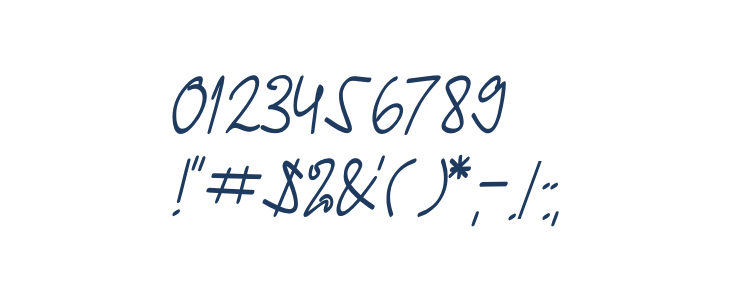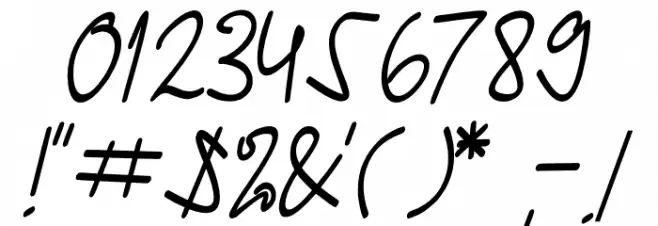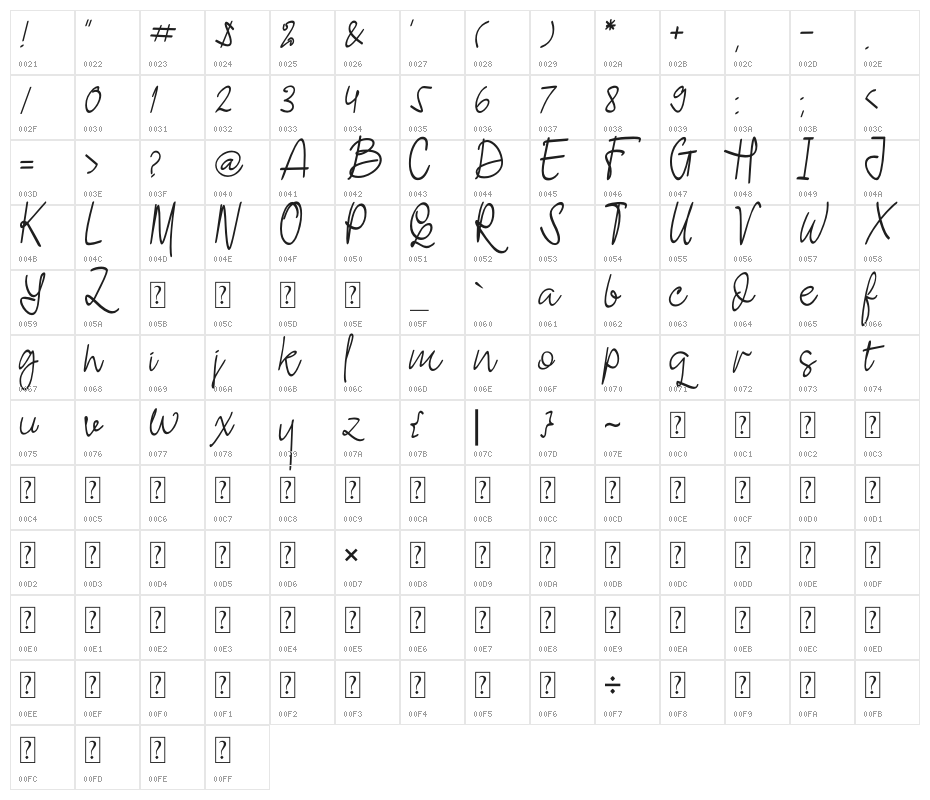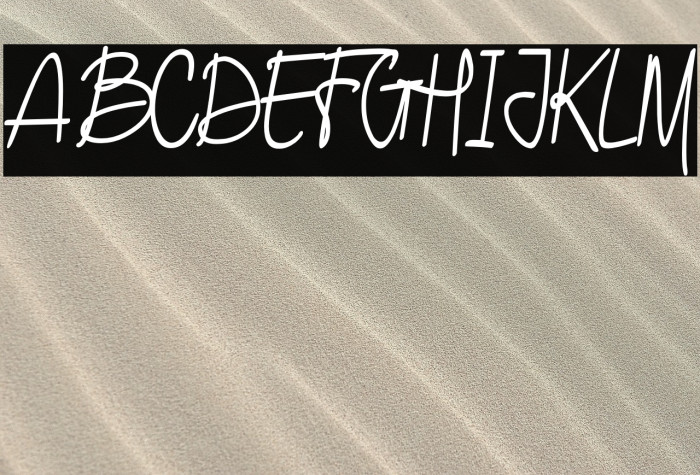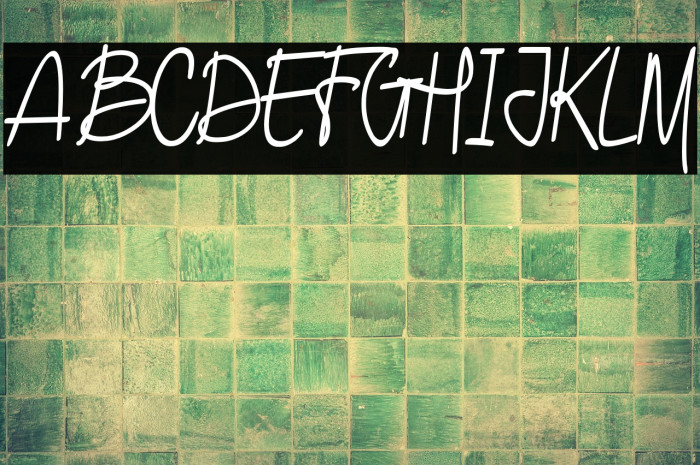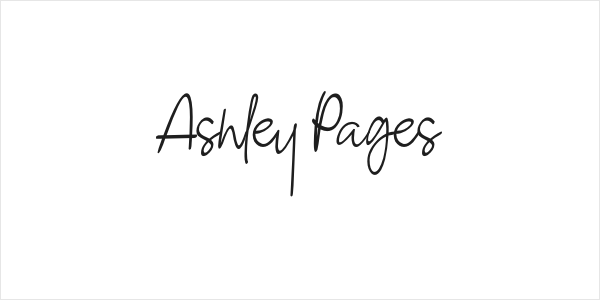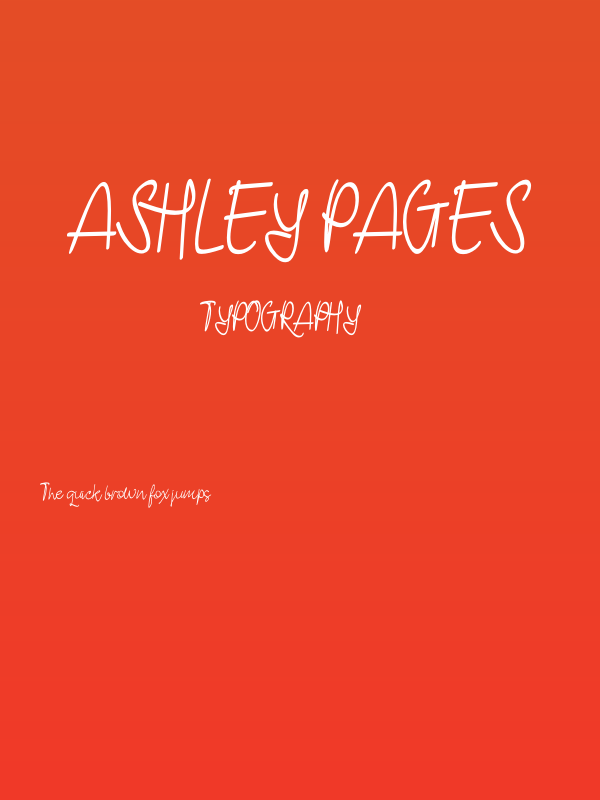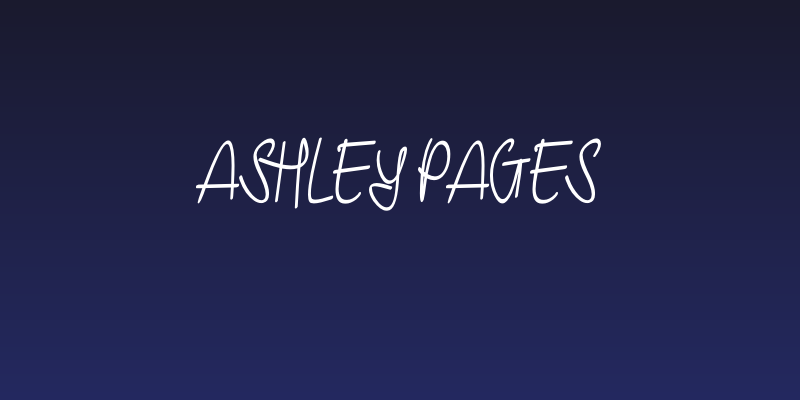
Ashley Pages Font
Ashley Pages Description
This font exudes a casual, handwritten style with a playful and personal touch. The characters are fluid and connected, giving the impression of a quick, yet deliberate script. The uppercase letters maintain a consistent height, while the lowercase letters exhibit a charming irregularity, adding to the font's informal appeal. The numbers and special characters are crafted with the same flowing lines, ensuring a cohesive look across all elements. This font is ideal for projects that require a personal, approachable feel, such as invitations, greeting cards, or personal branding. Its unique style stands out, making it perfect for creative and artistic endeavors.
| Proposed Projects | Ideal for invitations, greeting cards, personal branding, and creative projects. |